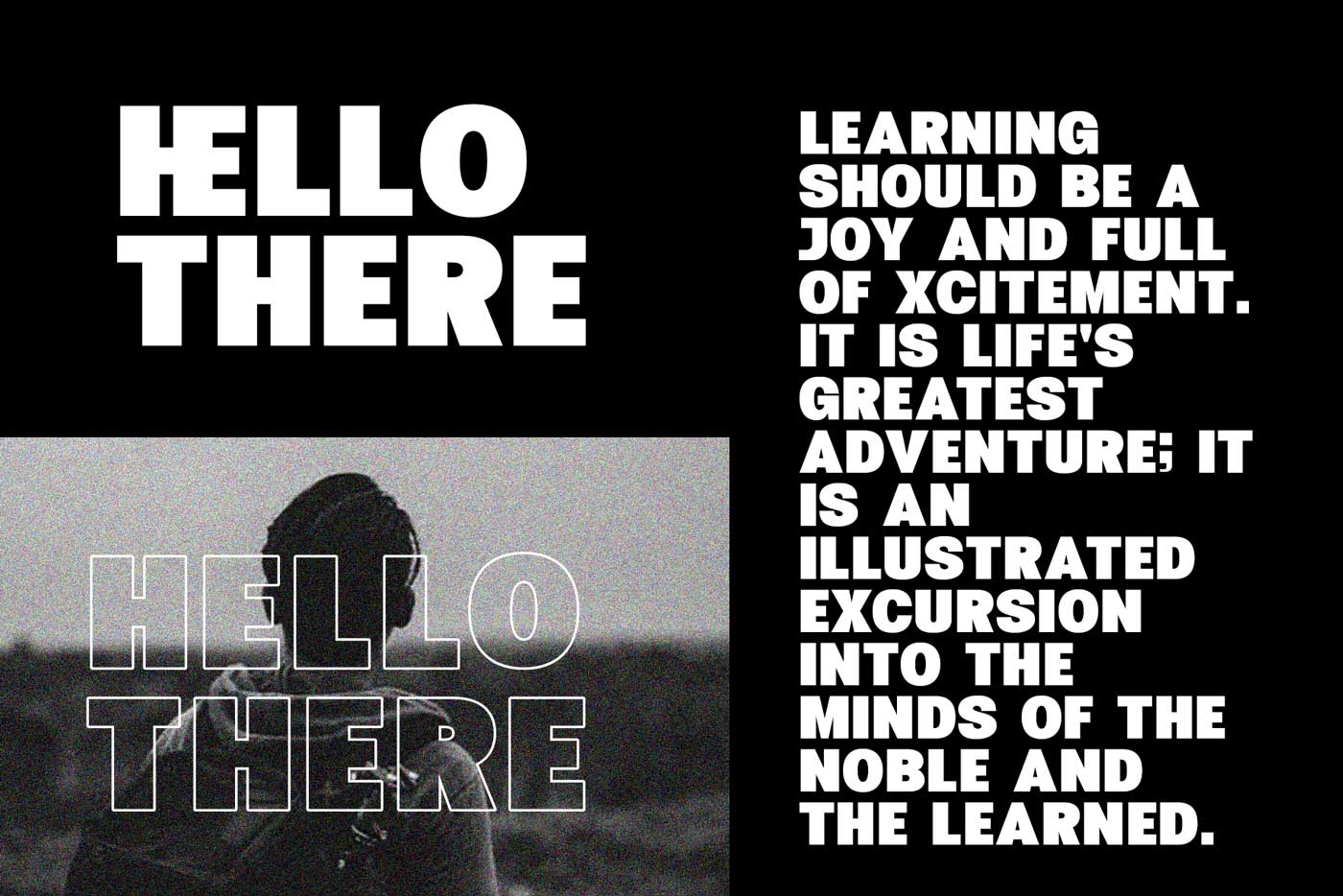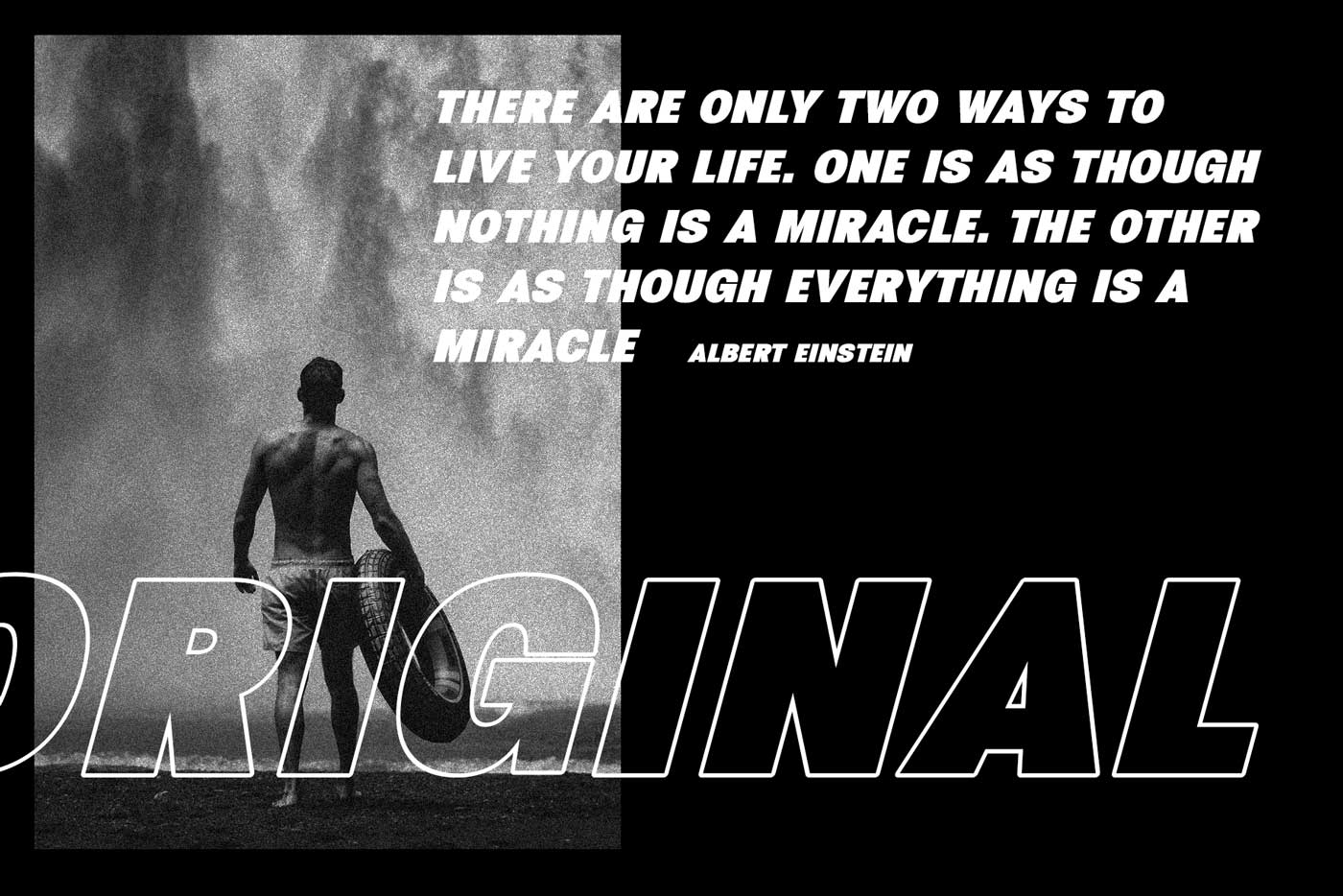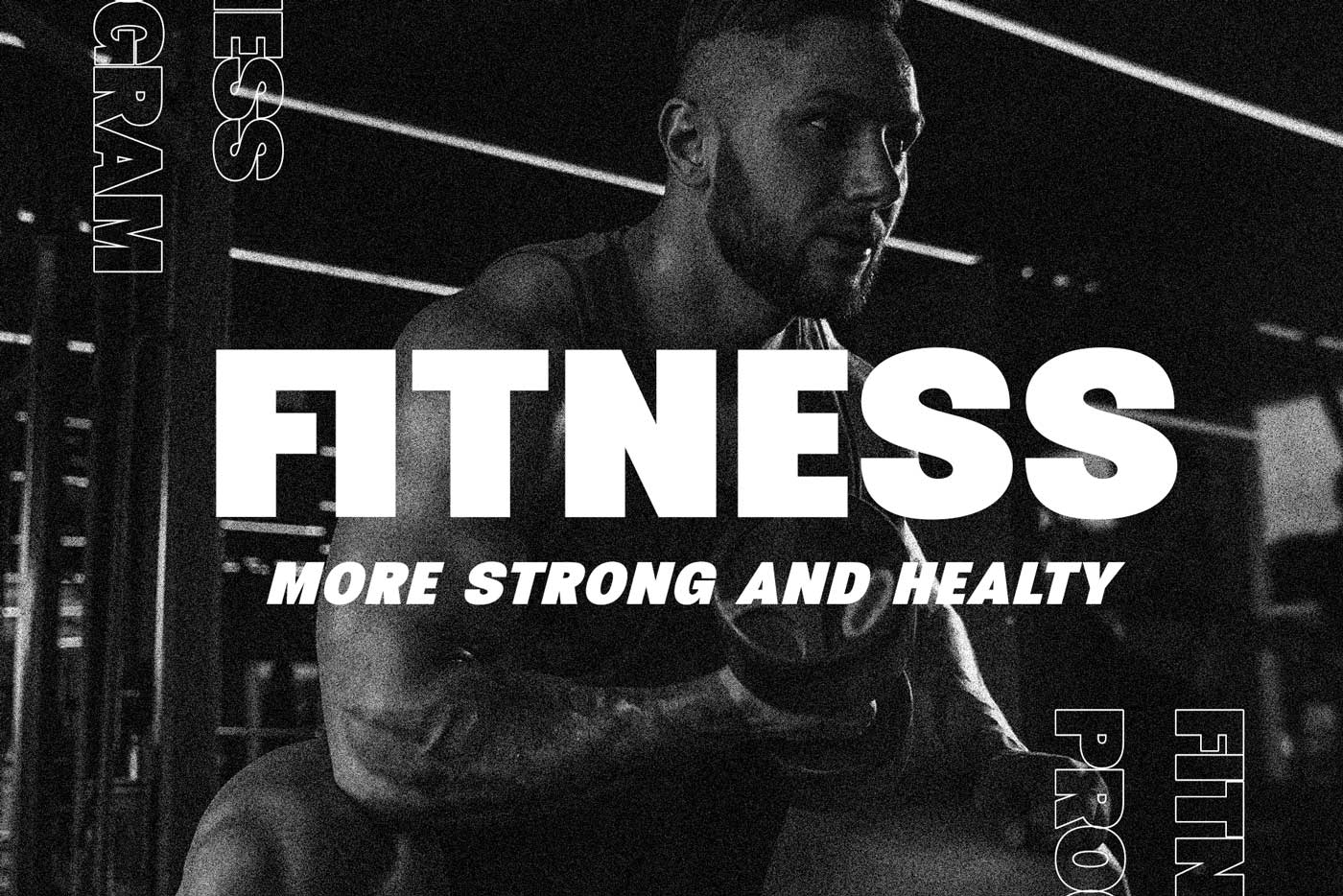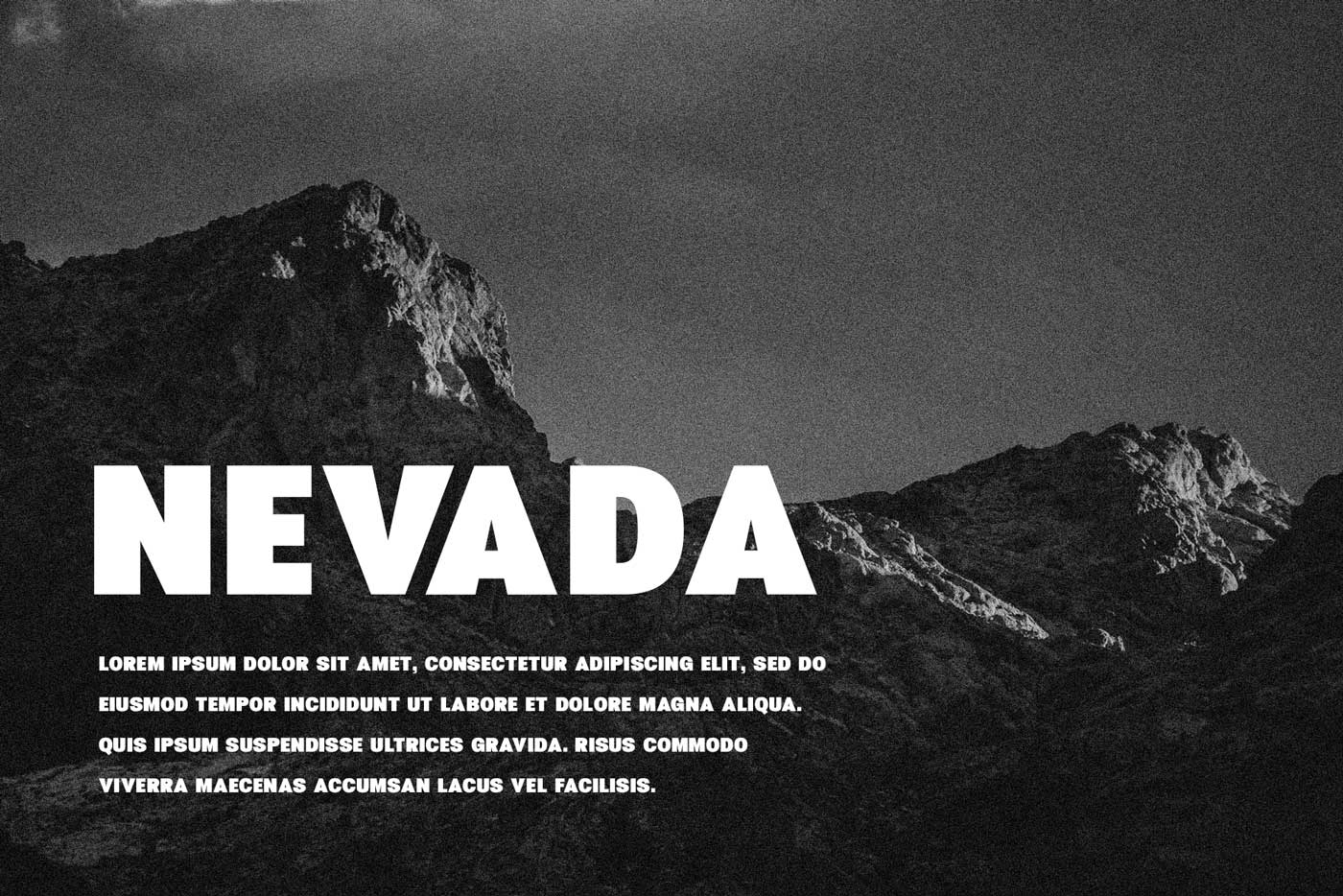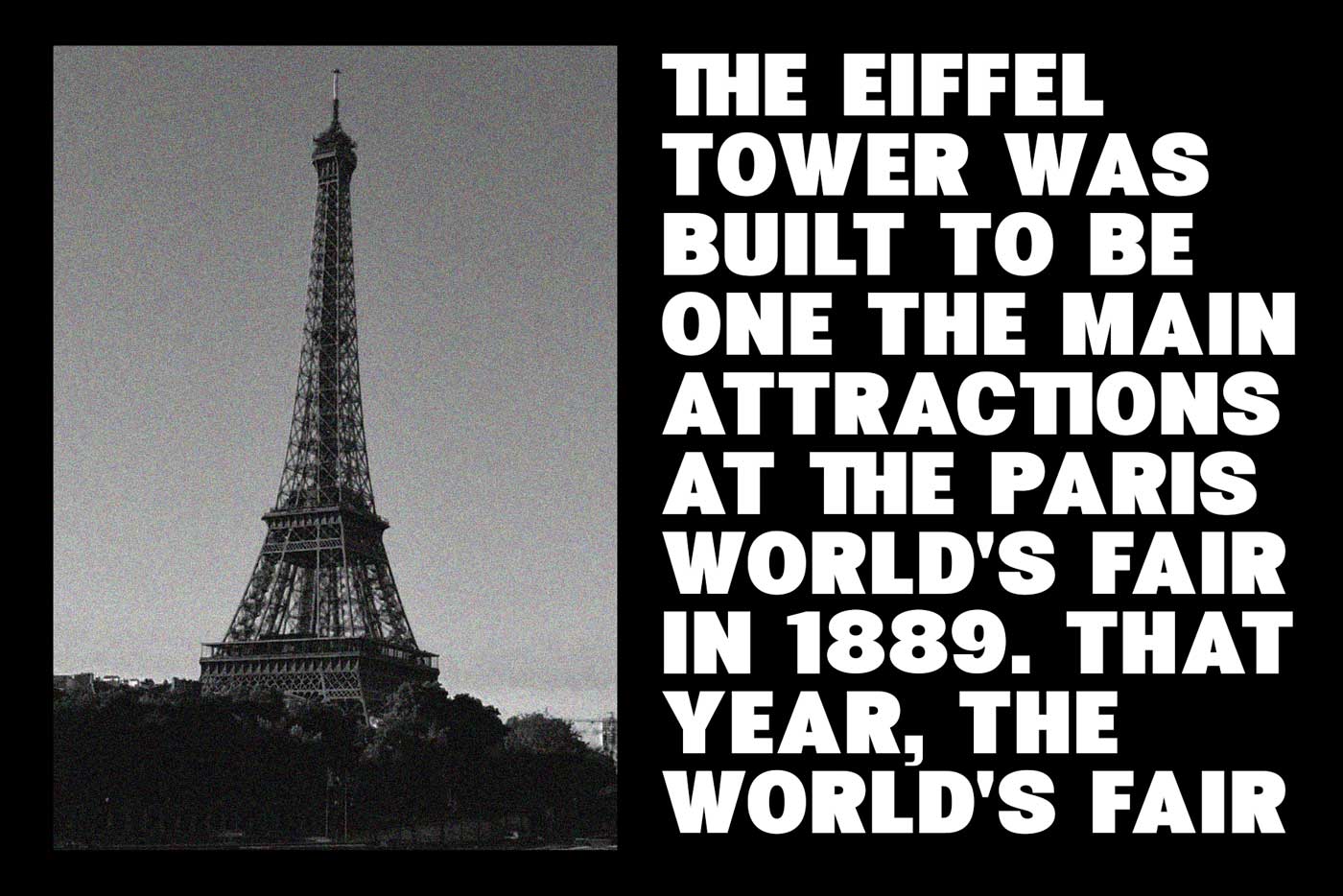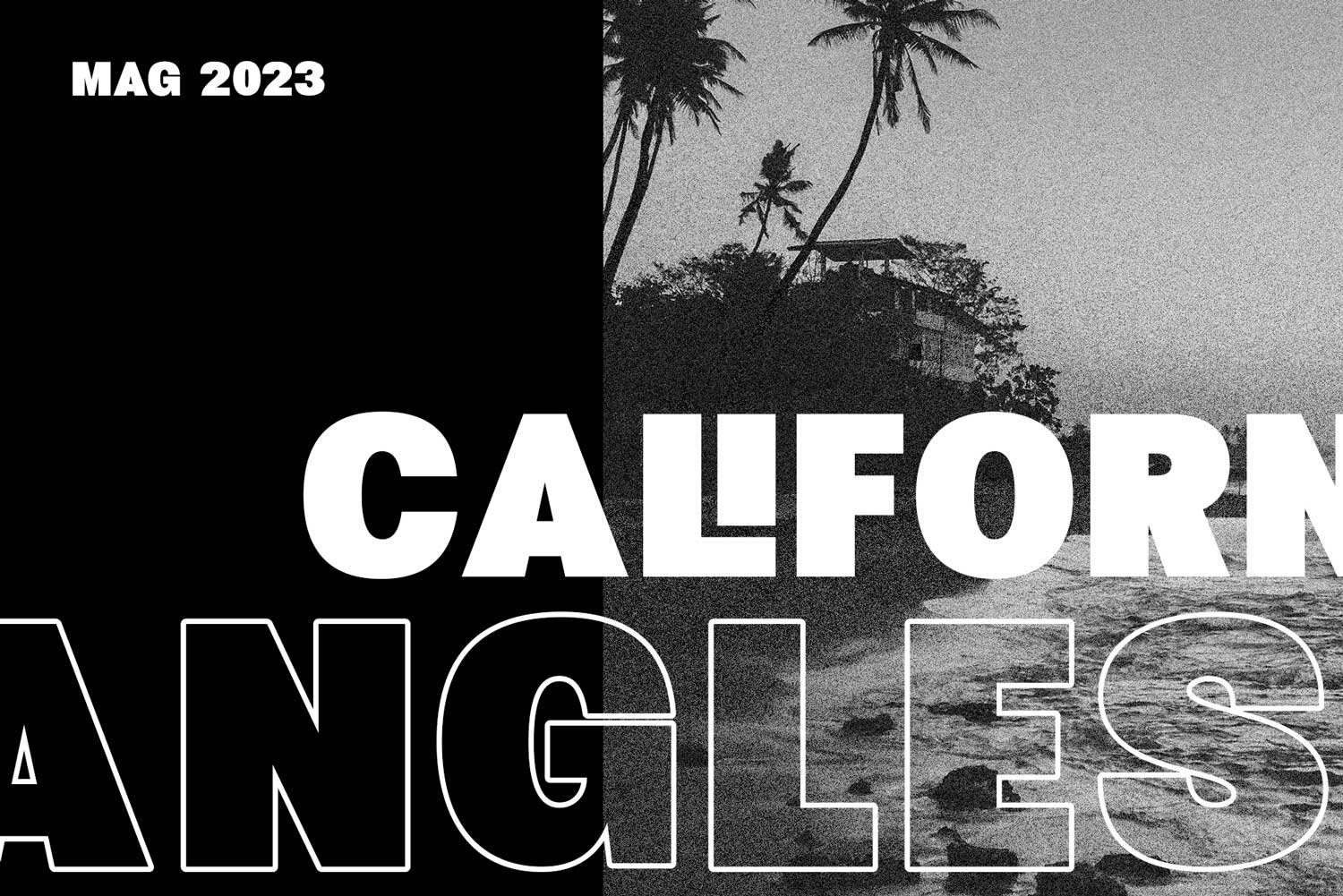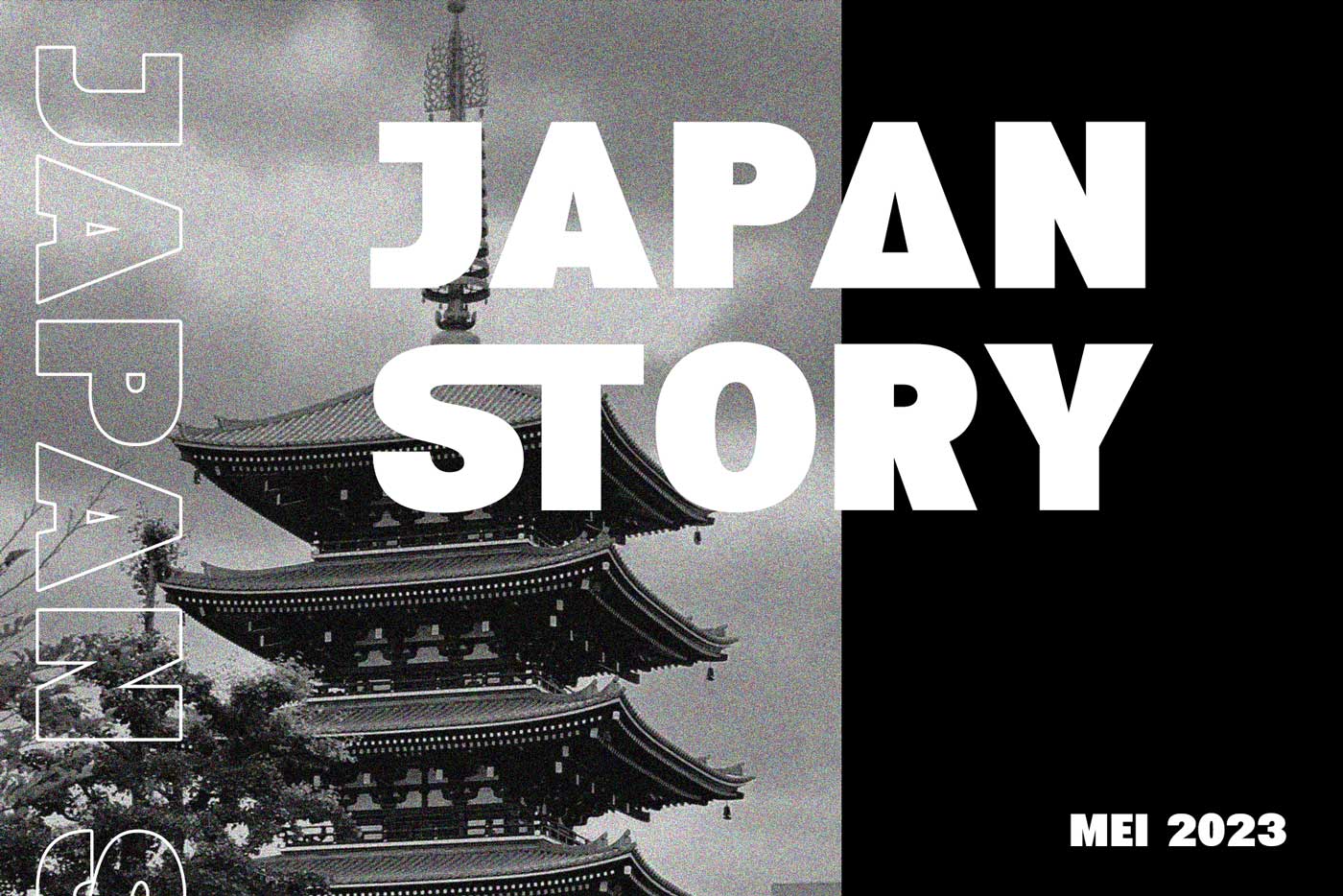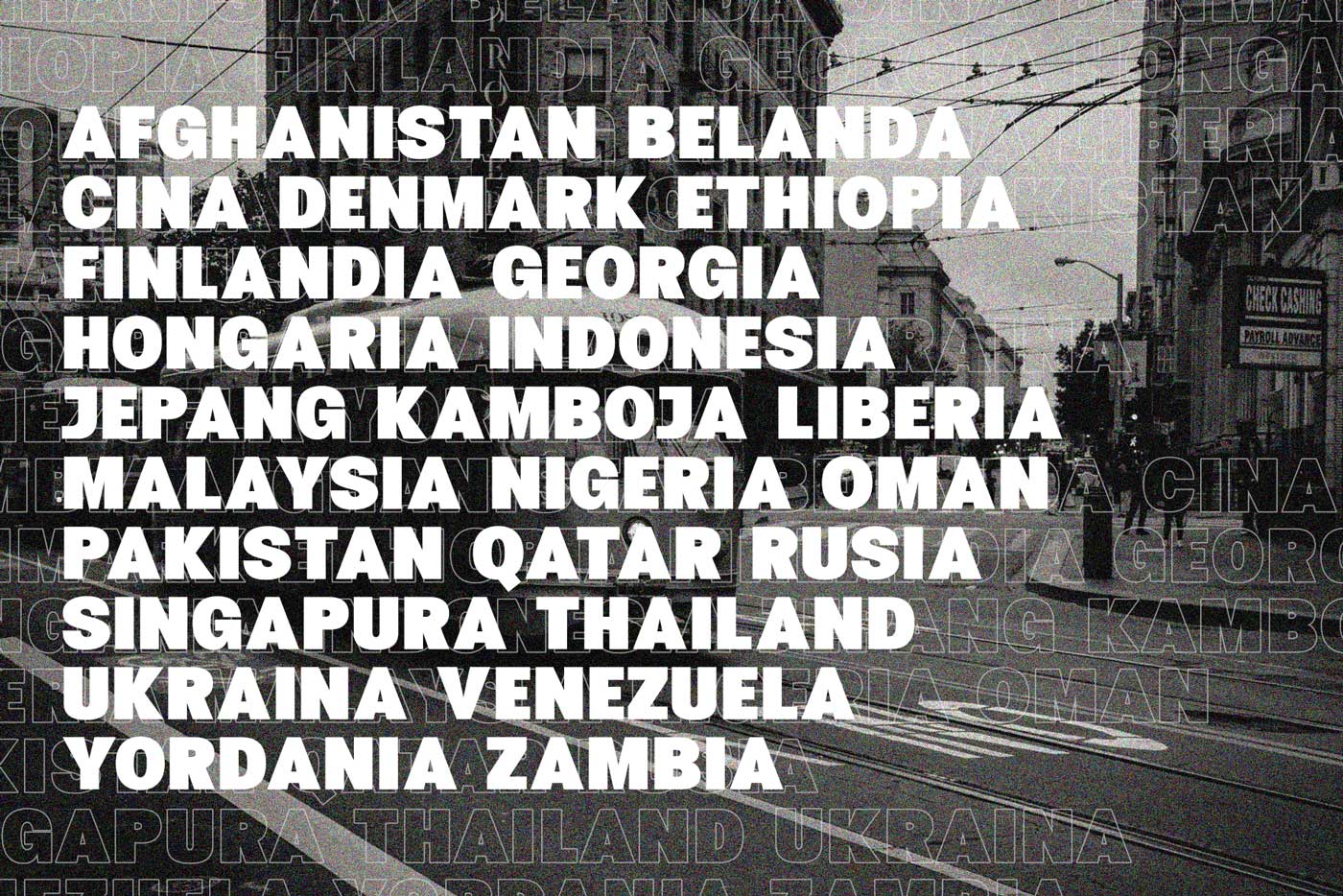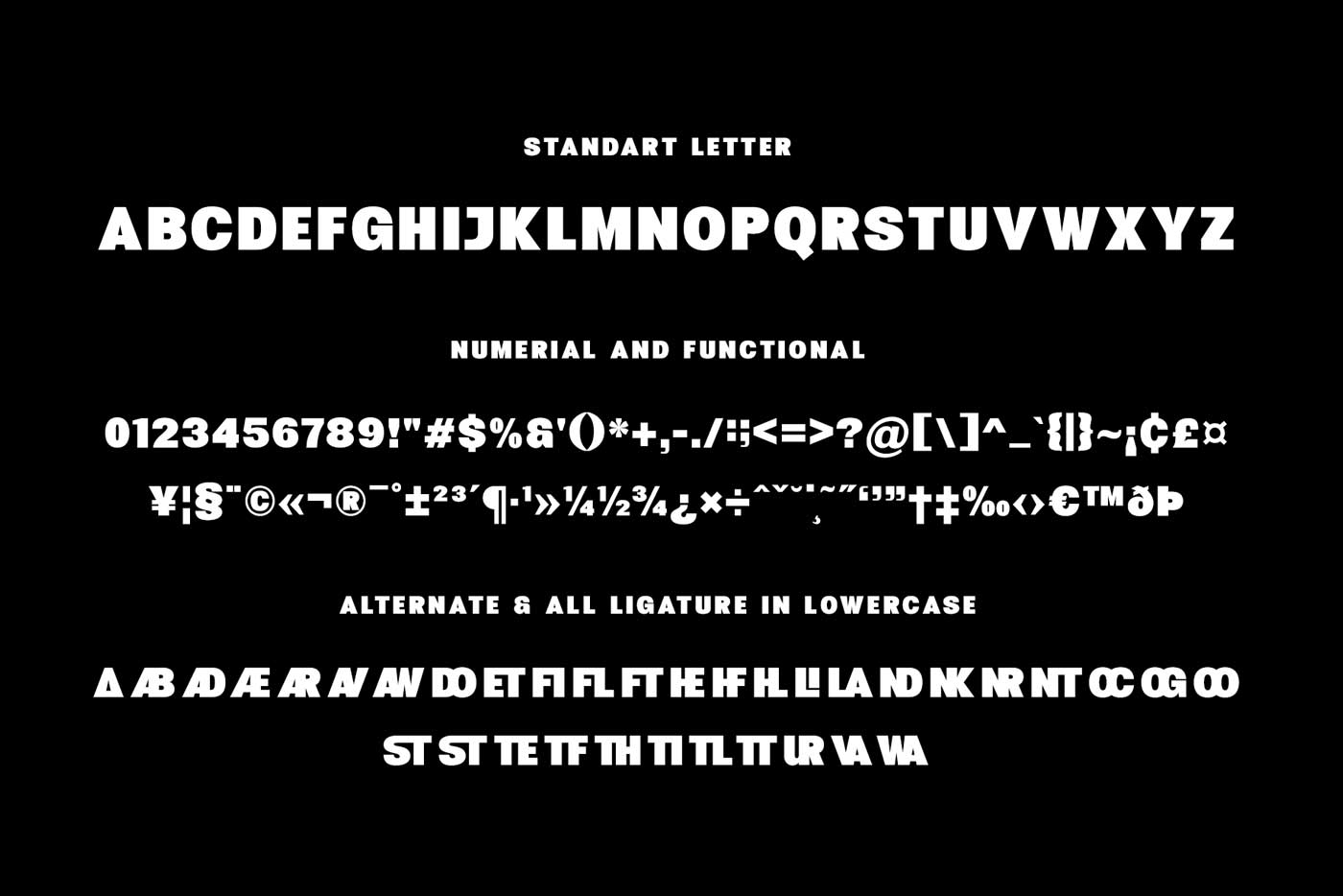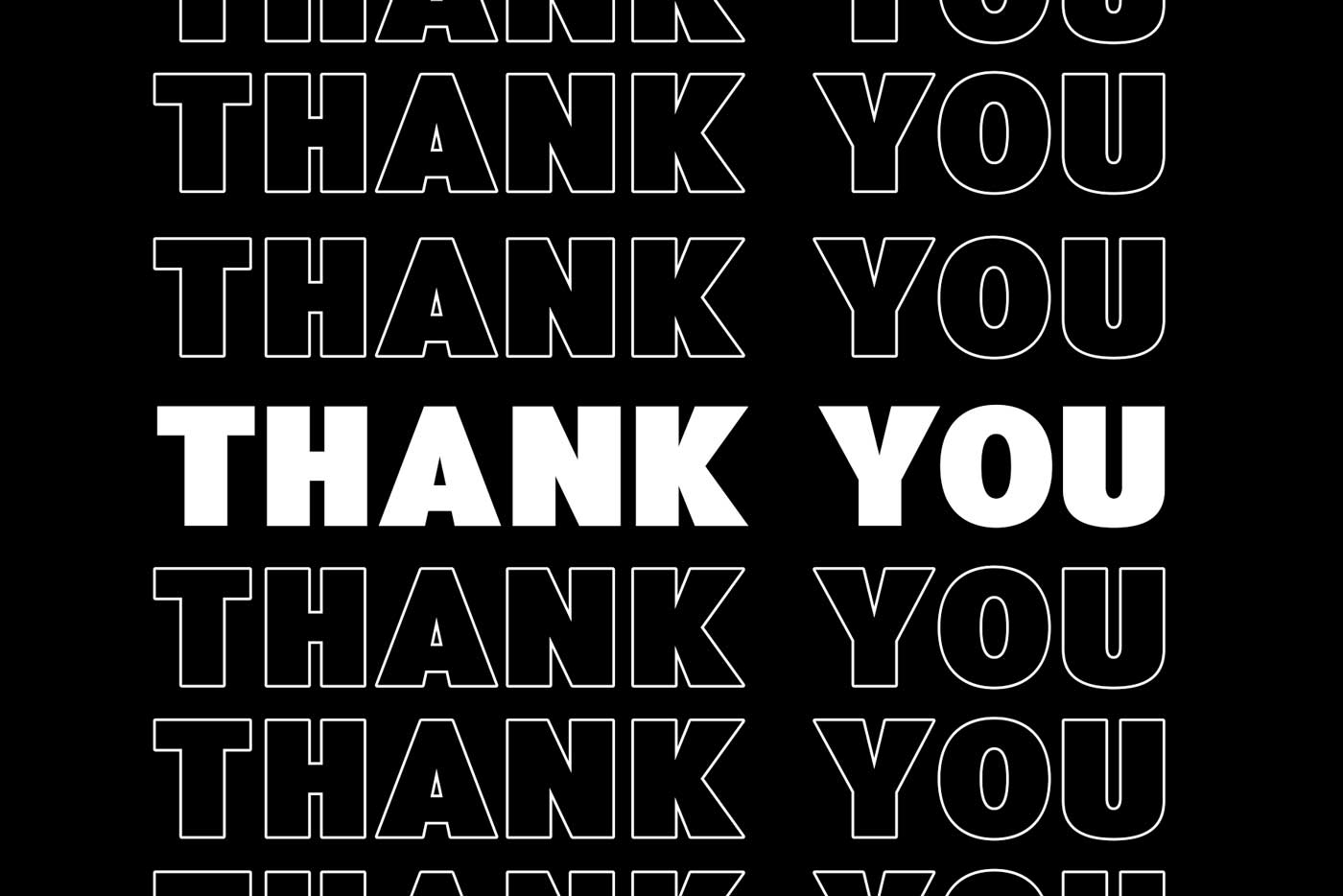
Hexos Bold and Strong Font
Hexos isĀ  Strong and strong font. Hexos also have 4 font their include reguler , reguler italic, outline and outline italic. The outlined fonts give a real modern feel to any project. For ligature i made into a lowercase, so it can easy to use.
Hexos will perfect for many project: branding, logos, magazines, films, poster, quotes. Hexos here to make your brand to high level!!!
• Standar letter A-Z